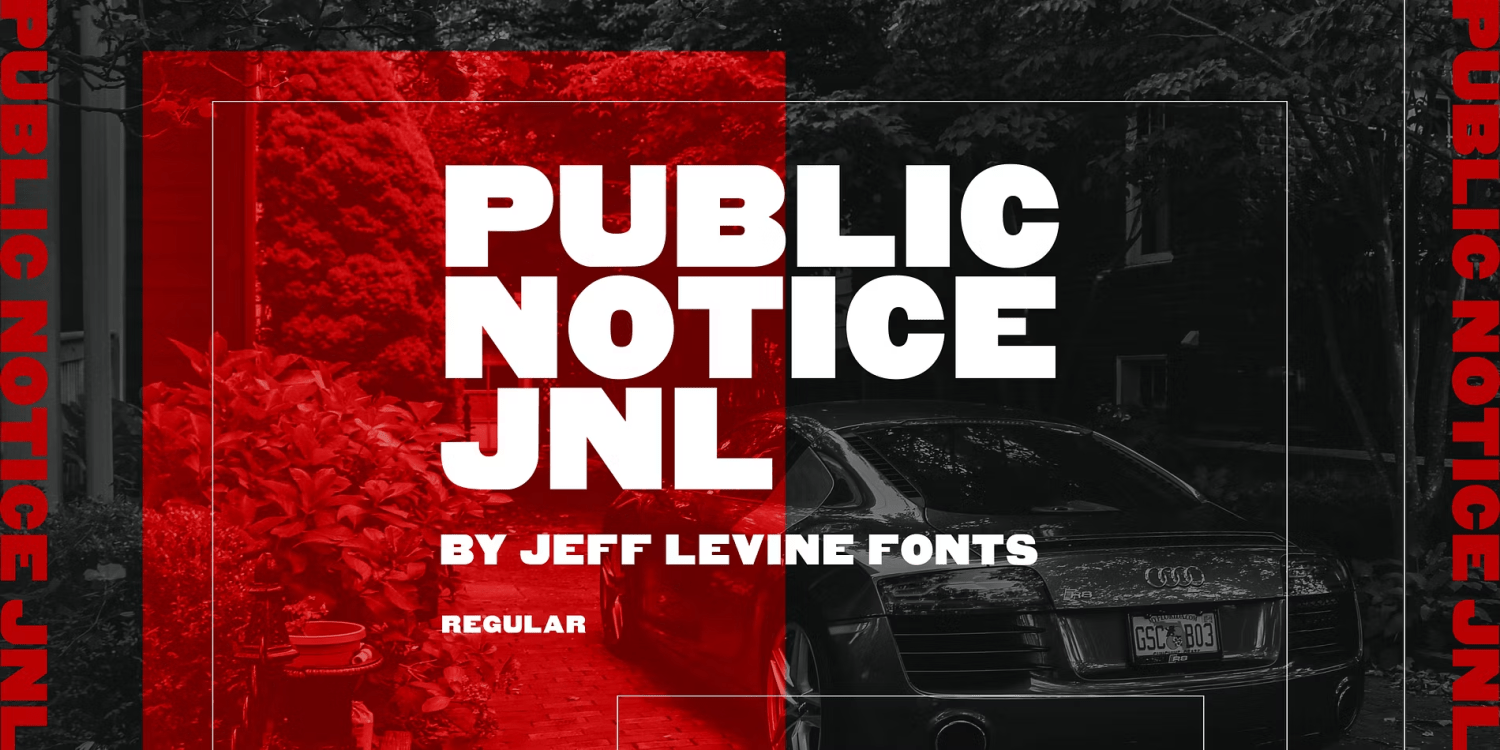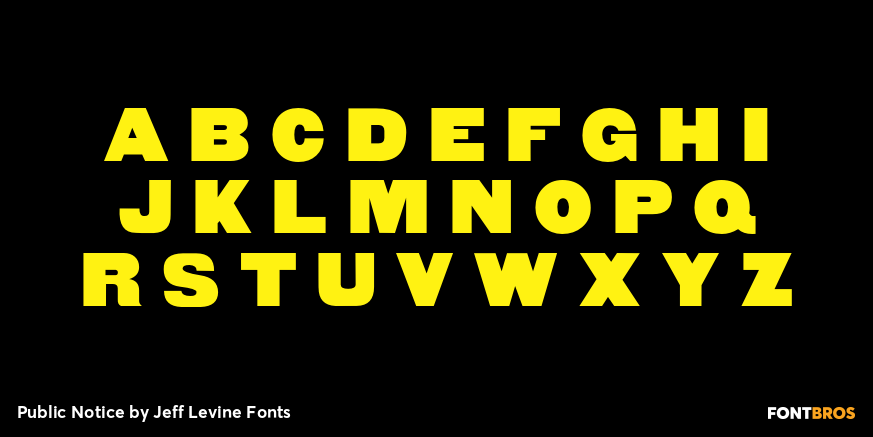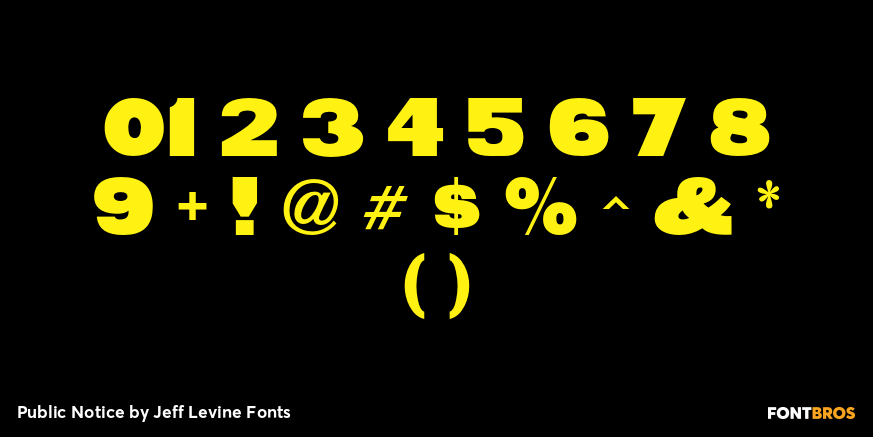
Public Notice
Public Notice JNL is based on a wood type Gothic alphabet. The image sample used for a model had only the basic A-Z characters an ampersand an an exclamation point, so numbers and additional characters were designed and added to the digital version.